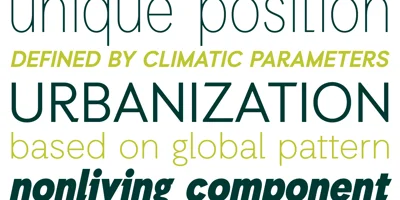
Auxilia Font
Auxilia Font is perfect for supportive projects including healthcare branding, educational materials, nonprofit organization logos, community service graphics, assistance program materials, guidance counseling resources, support group communications, and humanitarian campaign designs. This reliable typeface brings trust and accessibility to any design project.
What makes Auxilia Font exciting is its perfect balance of approachability and professionalism that instills confidence and comfort. The clean, friendly letterforms feature gentle curves and open counters that create a welcoming atmosphere while maintaining the authority needed for important communications. This font delivers the reassuring presence that helps people feel supported and understood in their most vulnerable moments.
The Auxilia Font family typically includes multiple weights from light to bold with corresponding italic styles, complete character sets featuring uppercase and lowercase letters, numerals, punctuation, and accessibility-focused symbols. The design often incorporates enhanced readability features and generous spacing that support users with various reading needs. Premium versions may include extended language support and special characters for international humanitarian applications.
Whether you're designing for healthcare institutions, educational services, or community organizations, Auxilia Font delivers the trustworthy accessibility that builds meaningful connections. Its versatile nature makes it equally effective for important announcements and detailed informational content. The font's supportive character ensures it conveys care and competence, making it ideal for any project requiring the compassionate aesthetic of professional service and genuine human connection.